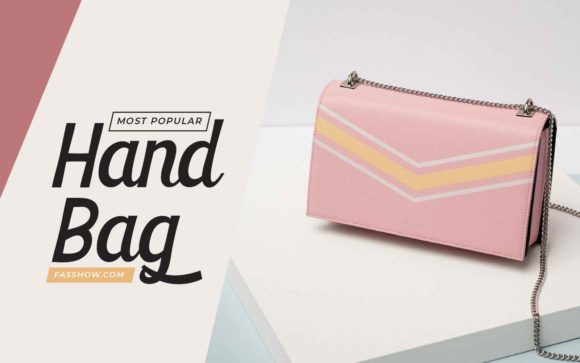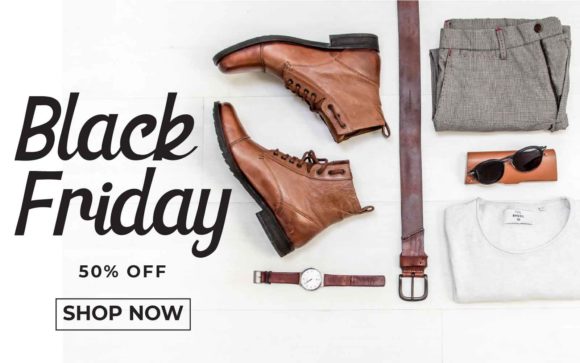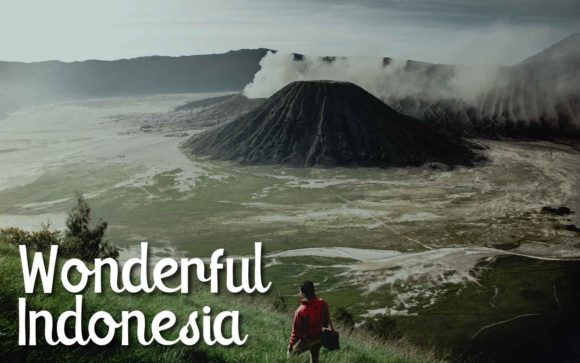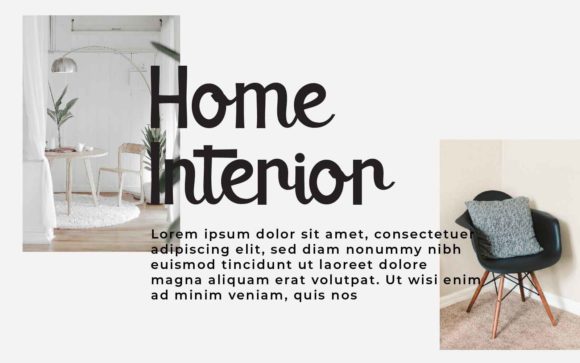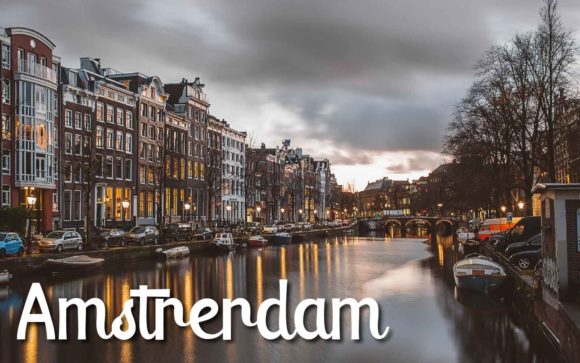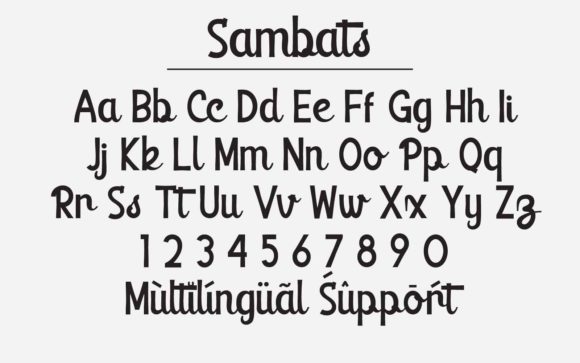
Introduction to Sambats Font
Remember the thrill of discovering a new design tool that elevates your creative project to the next level? For many designers, that moment is a game-changer. It’s the difference between a decent design and a truly exceptional one. And that’s exactly what the Sambats Font offers – a high-quality, one-of-a-kind handwriting font that brings a touch of sophistication to any project.
With its elegant calligraphic influences and modern twist, the Sambats Font is a versatile design resource that’s sure to impress. Whether you’re working on a branding project, creating a wedding invitation, or designing a digital product, this font is sure to bring a touch of class and personality to your work. And the best part? It’s available for free download, making it an accessible addition to your design arsenal.
Key Features of Sambats Font
- High-quality design for a creative project, ideal for illustrations and graphics
- Unique, hand-drawn style with intricate details, setting it apart from other fonts
- Supports a wide range of languages, making it a versatile design tool
Honest Review: Sambats Font
I recently stumbled upon the Sambats Font, and I must say it’s been a game-changer for my design projects. As a designer, I’m always on the lookout for high-quality fonts that can elevate my creative work.
The Sambats Font is a beautiful, modern script font that’s perfect for any design project that requires a touch of elegance. I love how versatile it is – it works well for headings, titles, and even body text.
- ✨ Elegant and modern script font that’s easy to read
However, I do have to mention a few limitations. The font is not ideal for body text at very small sizes, and it can be a bit difficult to read on low-resolution screens.
- ⚠️ Not ideal for body text at very small sizes
- ⚠️ Can be difficult to read on low-resolution screens
Overall, I’m really impressed with the Sambats Font. It’s a great addition to any designer’s toolkit, and I highly recommend it for any creative project that requires a touch of elegance.
Common Use Cases for Sambats Font
The Sambats Font is ideal for:
• Social media graphics
• Blog posts and articles
• Infographics
• Branding and marketing materials